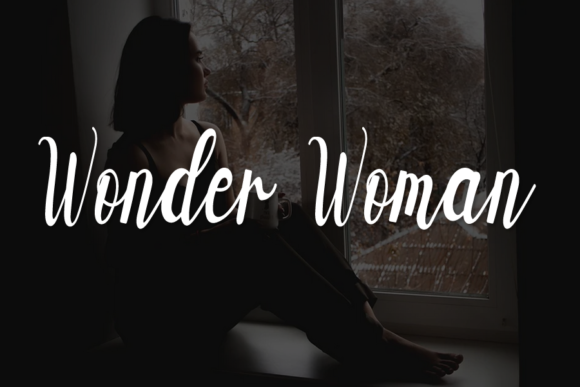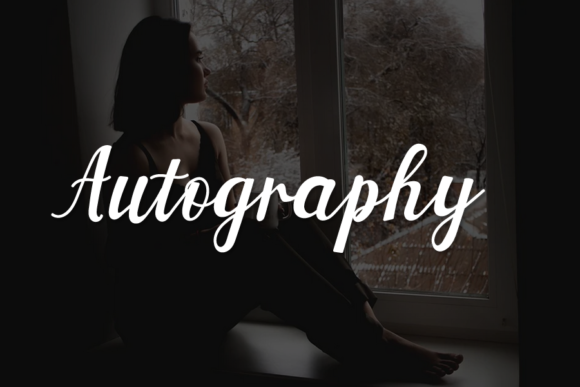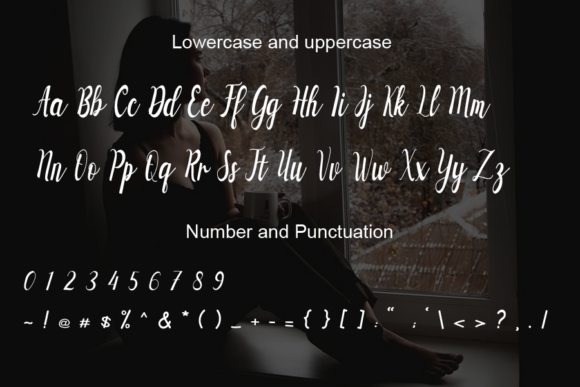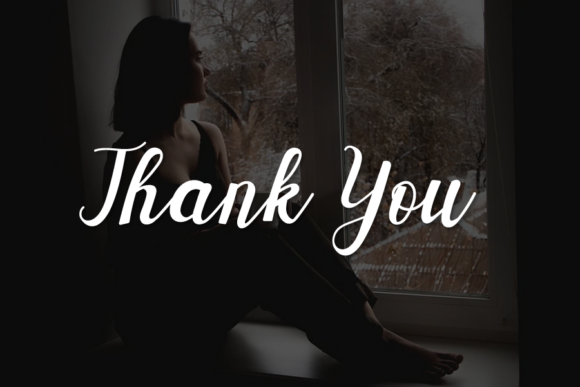
About Young Lady Font
Young lady is a romantic and sweet handwritten font with characters that dance along the baseline. It will add a luxury spark to any design or project that you wish to create!